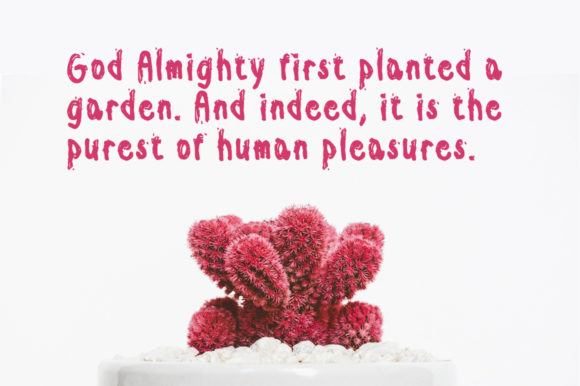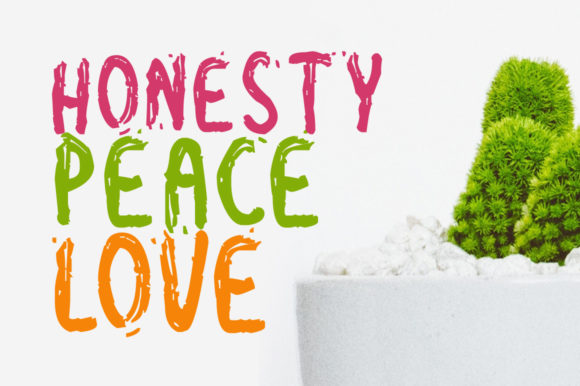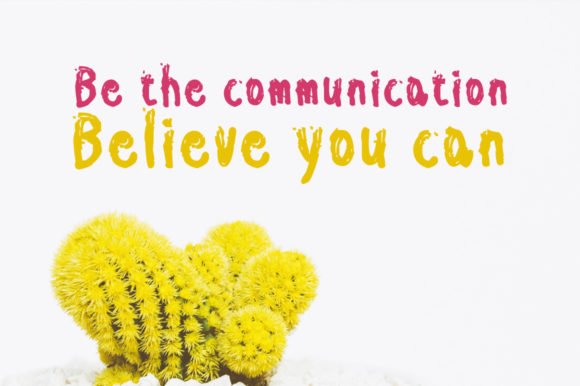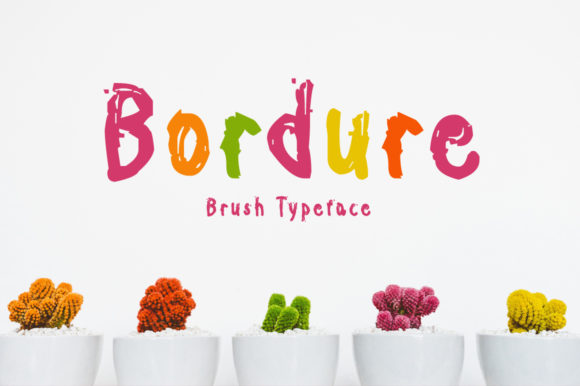
Bordure Font: The Ultimate Brush Font for Creative Designs
Are you a designer or crafter looking for a unique and playful font to elevate your creative projects? Look no further than the Bordure Font! This brand new brush font is perfect for adding a touch of fun and personality to your designs. In this article, we’ll dive into the features and benefits of the Bordure Font, and explore the many ways you can use it to take your designs to the next level.
What is Bordure Font?
The Bordure Font is a brush font that boasts a fun and playful style, making it ideal for a wide range of creative projects. Its unique and hand-crafted design ensures that each letter and character is distinct and full of personality. Whether you’re working on a stationery design, logo, t-shirt, or website header, the Bordure Font is sure to add a touch of whimsy and flair.
Key Features of Bordure Font
- Unique Brush Design: The Bordure Font features a one-of-a-kind brush design that sets it apart from other fonts. Its hand-crafted style ensures that each character is unique and full of personality.
- Playful Style: The font’s playful style makes it perfect for designs that require a touch of fun and whimsy. From children’s party invitations to social media graphics, the Bordure Font is sure to delight.
- Highly Versatile: The Bordure Font is incredibly versatile, making it suitable for a wide range of design projects. Use it for stationery, logos, t-shirts, papers, print designs, website headers, photo frames, flyers, music covers, posters, image sliders, and more!
Uses for Bordure Font
The Bordure Font is perfect for a wide range of design projects, including:
- Stationery Design: Add a touch of personality to your stationery designs with the Bordure Font. Use it for greeting cards, invitations, and other paper crafts.
- Logo Design: Create a unique and memorable logo for your business or brand with the Bordure Font. Its playful style makes it perfect for businesses that want to stand out from the crowd.
- T-Shirt Design: Design eye-catching t-shirts with the Bordure Font. Its fun and playful style makes it perfect for creating custom apparel for kids and adults alike.
- Print Design: Use the Bordure Font to add a touch of whimsy to your print designs, including brochures, flyers, and posters.
- Website Headers: Add a touch of personality to your website headers with the Bordure Font. Its unique design ensures that your website will stand out from the crowd.
Tips for Using Bordure Font
Here are a few tips for getting the most out of the Bordure Font:
- Experiment with Colors: The Bordure Font looks great in a variety of colors, so don’t be afraid to experiment and find the perfect hue for your design.
- Mix and Match: Try mixing and matching the Bordure Font with other fonts to create a unique and eye-catching design.
- Use it Sparingly: While the Bordure Font is perfect for adding a touch of personality to your designs, it’s best to use it sparingly. Use it as an accent font to add visual interest to your design.
The Bordure Font is a unique and playful brush font that’s perfect for designers and crafters looking to add a touch of fun and personality to their creative projects. With its highly versatile design and easy-to-use format, it’s perfect for a wide range of design projects, from stationery and logos to t-shirts and website headers. So why wait? Download the Bordure Font today and start creating your own unique and eye-catching designs!